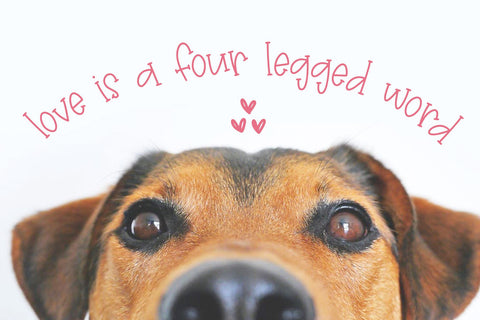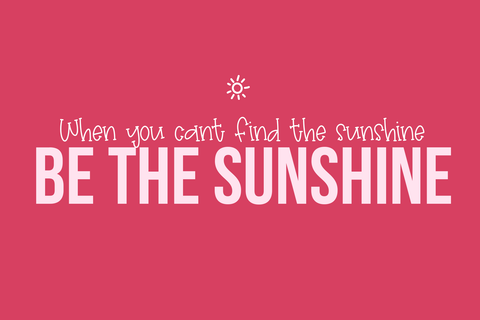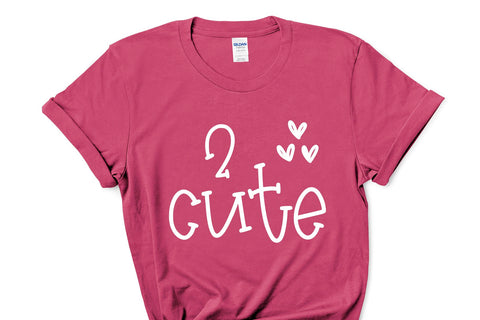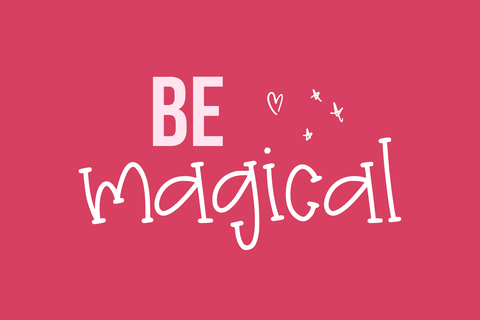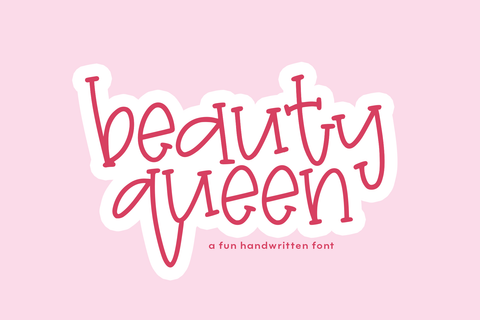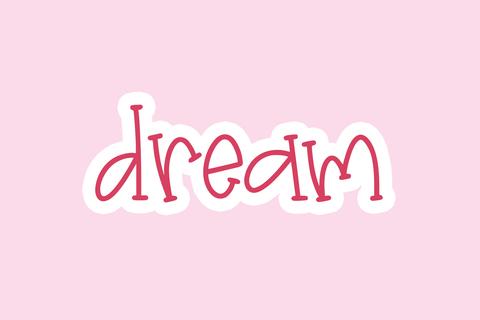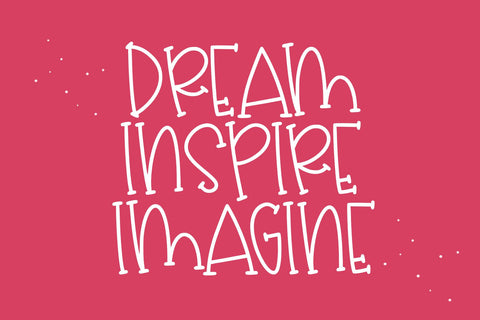
Beauty Queen - Handwritten Serif Font
Beauty Queen is a quirky handwritten font!
This font is perfect for quotes, shirt designs, websites, branding, children's designs, svg designs, blogs, logos, invitations and more!